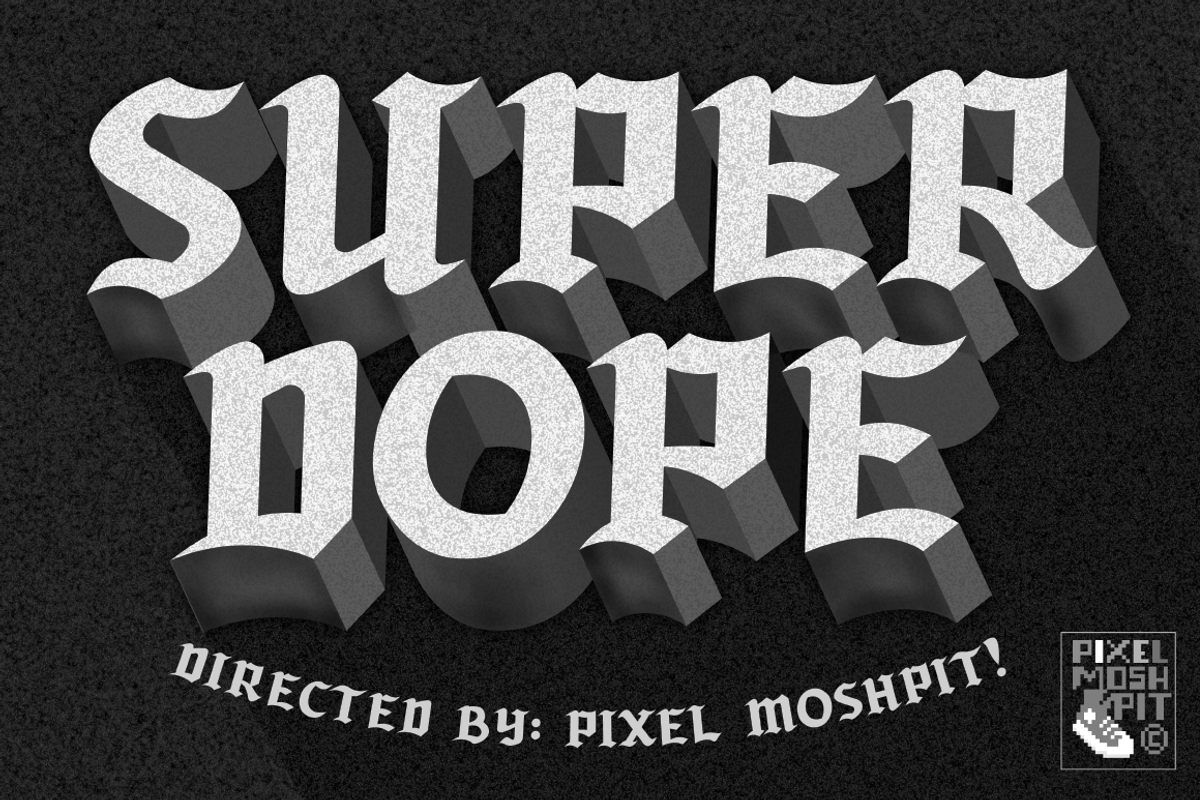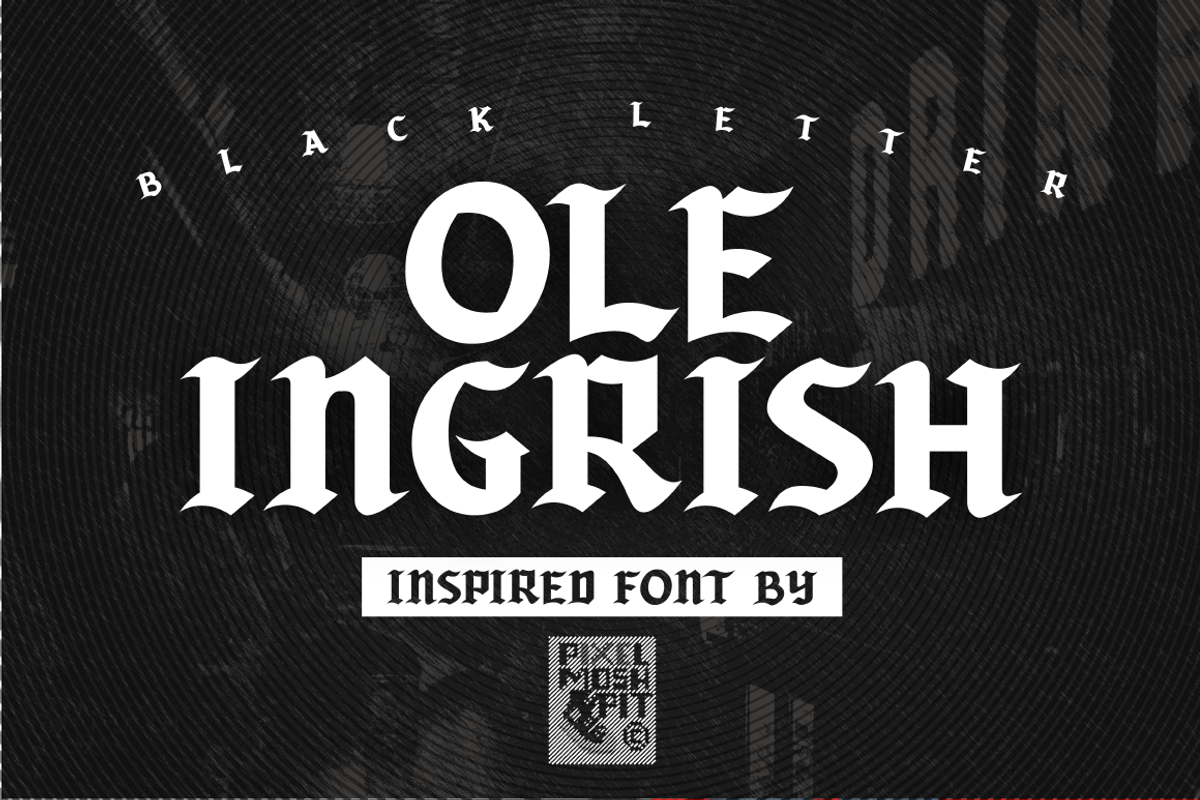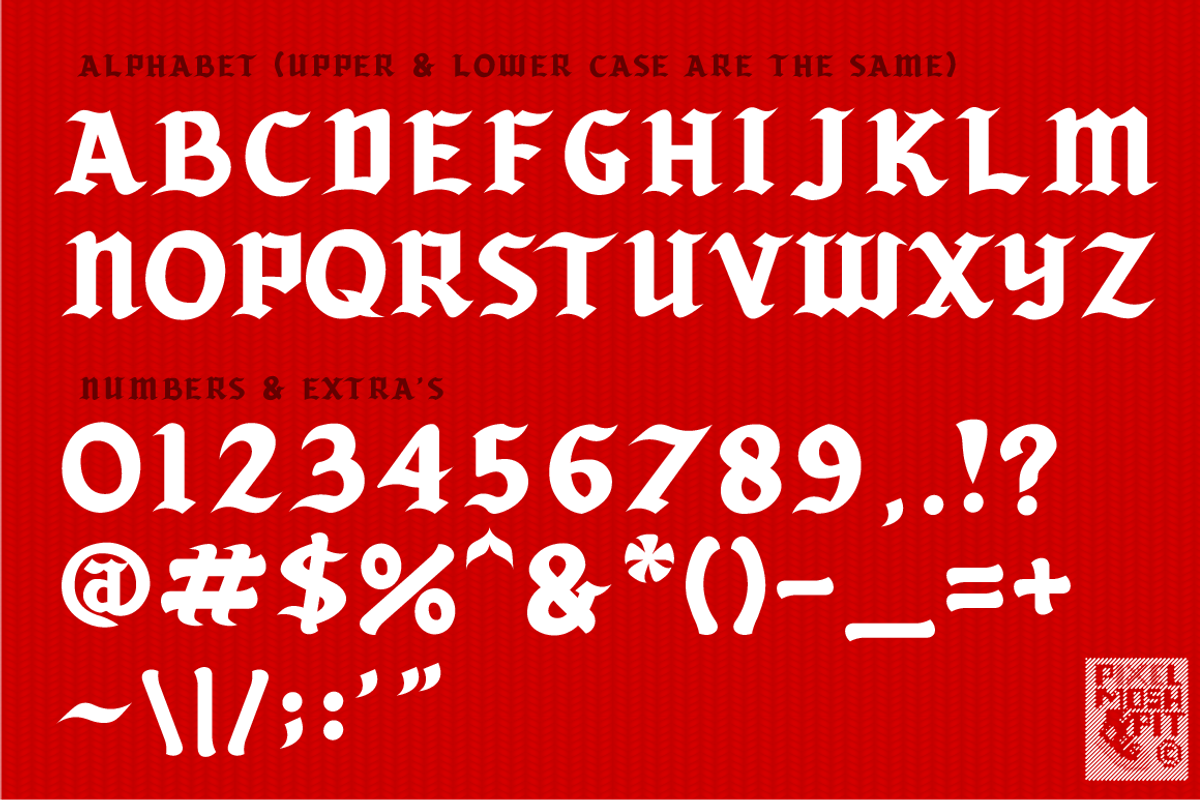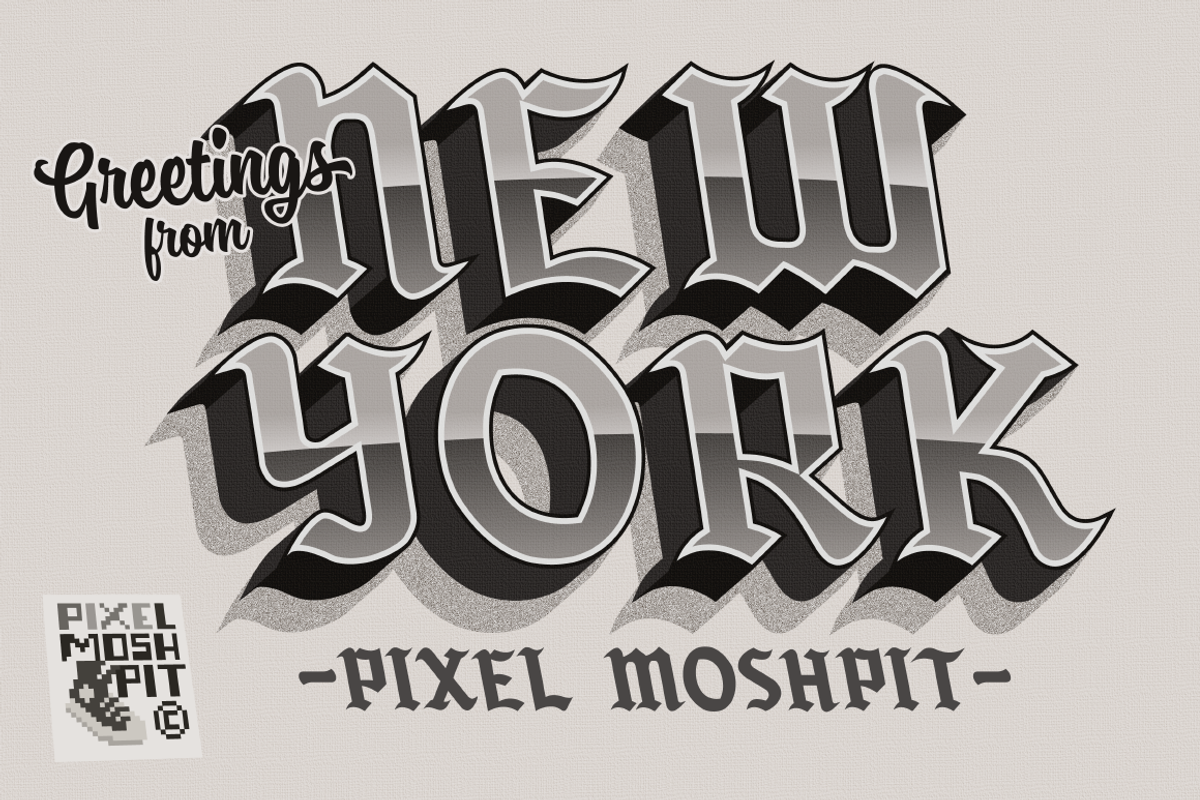
Ole Ingrish Font
Ole Ingrish Font by PixelMoshpit is a font selected for branding, posters, packaging, typography.
Why Ole Ingrish Font is worth a look
Ole Ingrish Font by PixelMoshpit fits naturally into Branding, posters, packaging, typography.